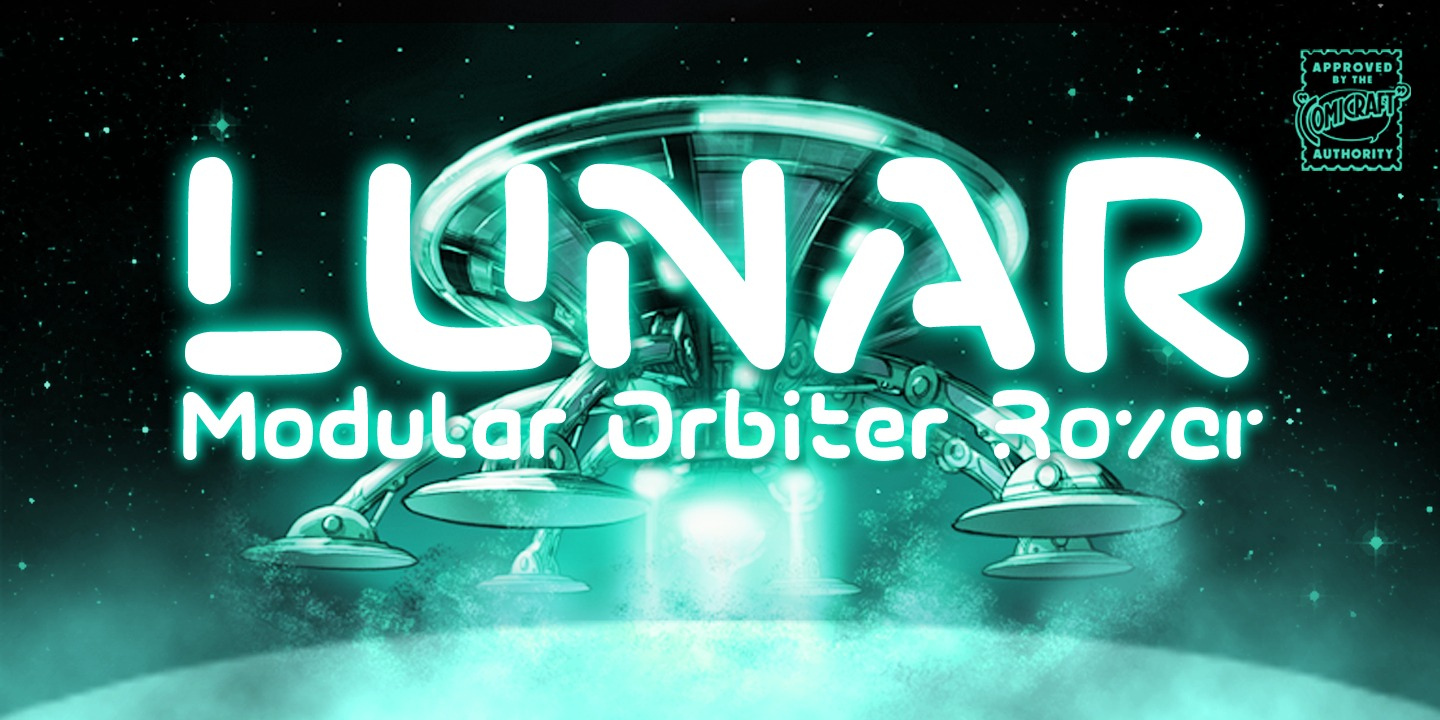
CC Lunar Font
CC Lunar Font is perfect for space-themed branding projects, astronomical observatory communications, moonlight-inspired designs, celestial event promotions, nighttime photography marketing, cosmic wellness brands, lunar calendar applications, and ethereal advertising campaigns. This celestial typeface works beautifully in both digital applications and print media where lunar mystique and cosmic serenity are essential design elements.
What makes CC Lunar Font so exciting is its mesmerizing interpretation of lunar phases and celestial cycles through graceful letterforms that seem to glow with the same gentle radiance and mysterious beauty of moonlight on a clear night. The font features ethereal characters with lunar proportions, cosmic curves, and celestial details that evoke the peaceful tranquility of nighttime skies and the timeless fascination with our celestial companion. Its mystical personality and astronomical heritage make it ideal for brands seeking to communicate cosmic wonder, natural rhythms, and the profound connection between earthly life and celestial cycles while maintaining excellent readability across lunar-themed applications.
The CC Lunar Font family includes multiple weight variations with different lunar intensities, along with phase-inspired alternates and celestial ornamental elements. Each style maintains the typeface's ethereal character while offering comprehensive character sets including cosmic numerals, astronomical punctuation marks, and special symbols designed to enhance celestial communications and lunar branding efforts across various mystical contexts.
The carefully crafted celestial details and optimized lunar performance in CC Lunar Font ensure both cosmic authenticity and clear communication across all astronomical applications. Its ethereal presence makes it perfect for celestial branding, cosmic marketing materials, and astronomical communications where its full lunar character can create peaceful connections with audiences who find inspiration in the eternal dance of celestial bodies and the gentle wisdom of lunar cycles.